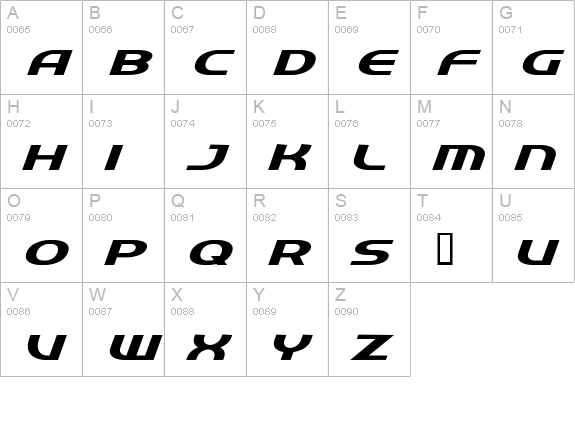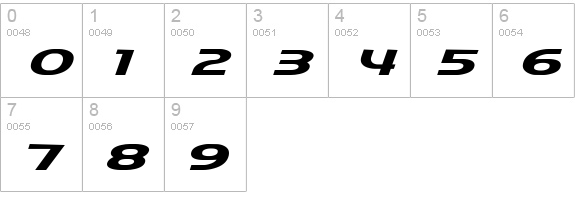
quick express Font Details
Introducing Quick Express Font, the perfect choice for all your speedy and efficient design needs! This versatile typeface is designed to bring a sense of urgency and dynamism to any project it graces. With its sleek and modern letterforms, Quick Express Font is sure to capture attention and convey a sense of fast-paced energy. What sets Quick Express Font apart from the rest is its exceptional quality and... best of all, it's completely free! That's right, you can freely download this incredible font at FontsMarket.com, the leading online marketplace for all your font needs. No need to worry about breaking the bank or compromising on style – Quick Express Font offers the best of both worlds. Whether you're creating eye-catching posters, captivating social media graphics, or impressive branding materials, Quick Express Font will elevate your designs to new heights. Its legible and well-crafted characters ensure readability across various mediums and sizes, making it a perfect choice for both print and digital projects. With its extensive character set, Quick Express Font supports multiple languages, allowing you to communicate your message effectively to a global audience. Its versatility knows no bounds, as it seamlessly adapts to various design themes and styles, from bold and impactful to elegant and refined. Downloading Quick Express Font is a breeze, thanks to the user-friendly interface at FontsMarket.com. Simply visit the website, browse through the extensive font library, and find Quick Express Font in all its glory. With just a few clicks, you'll have this incredible font at your fingertips, ready to revolutionize your designs. So why wait? Get your hands on Quick Express Font today and experience the freedom of creativity it brings. Download it for free at FontsMarket.com and watch your designs take off with unparalleled speed and impact. Don't miss out on this fantastic opportunity to elevate your design game – Quick Express Font is here to help you make a lasting impression.